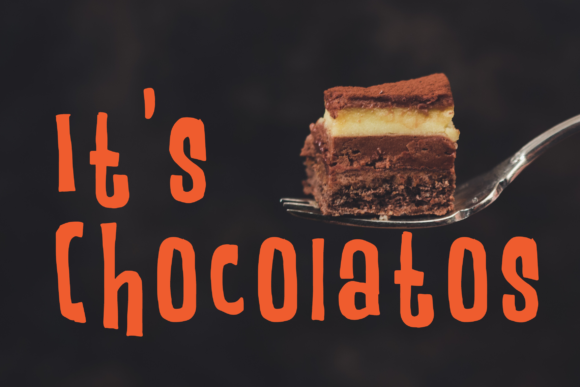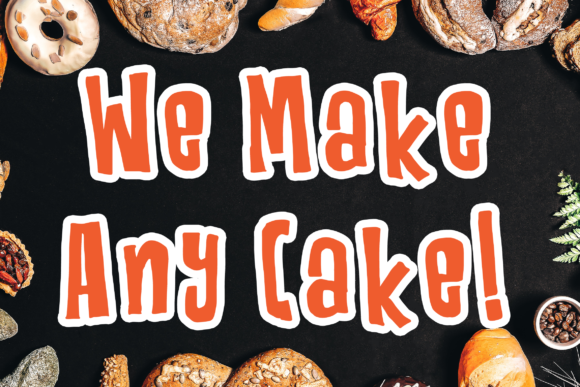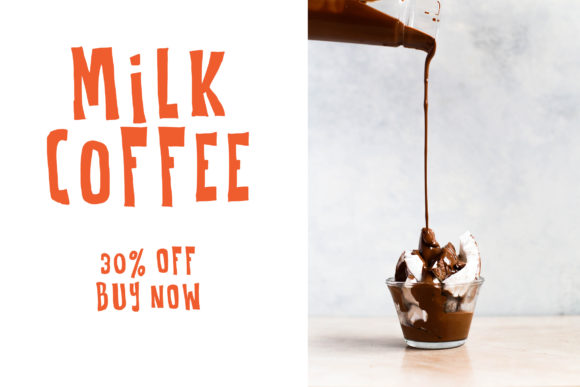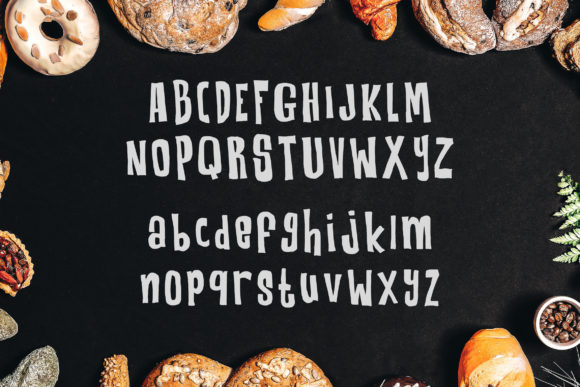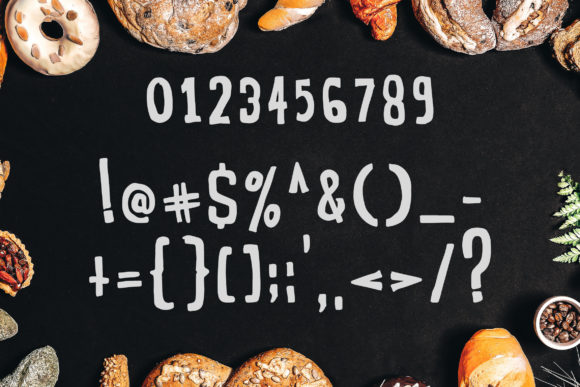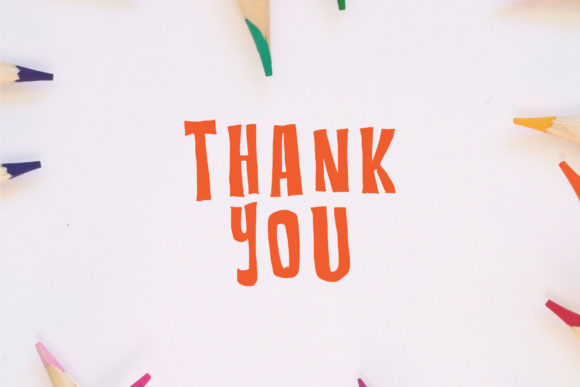
Introduction to Robeck Font
Robeck is a quirky and incredibly unique display font.
Key Features of Robeck Font
Why Choose Robeck Font?
Robeck Font offers exceptional quality and versatility, making it a valuable addition to your design toolkit. Whether you’re creating for personal projects or commercial use, Robeck Font delivers professional results.